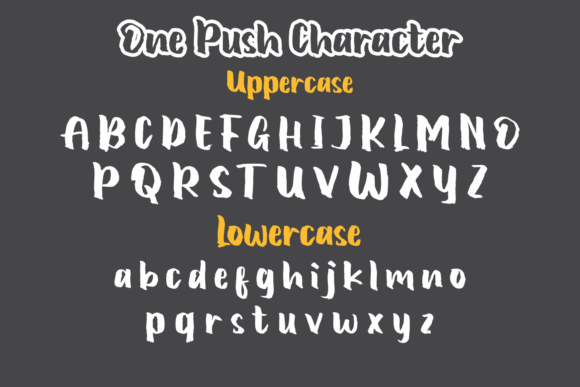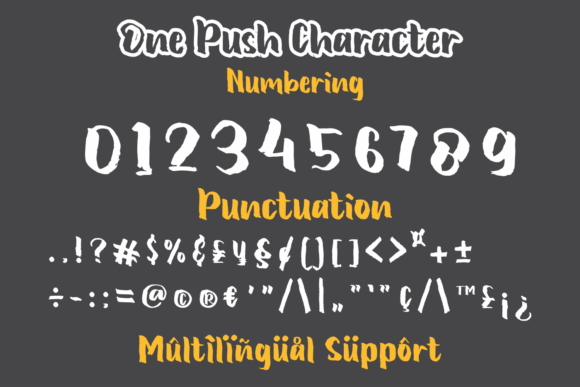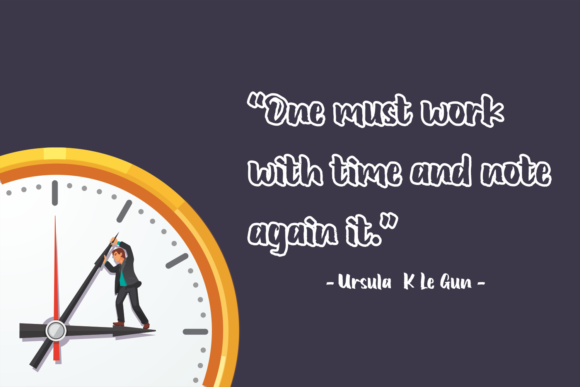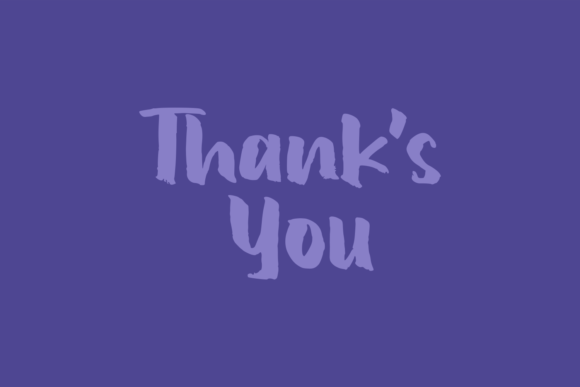
One Push Font – Free Download
Introduction to One Push Font
One Push is a sweet, flowing and chunky lettered handwritten font.
Key Features of One Push Font